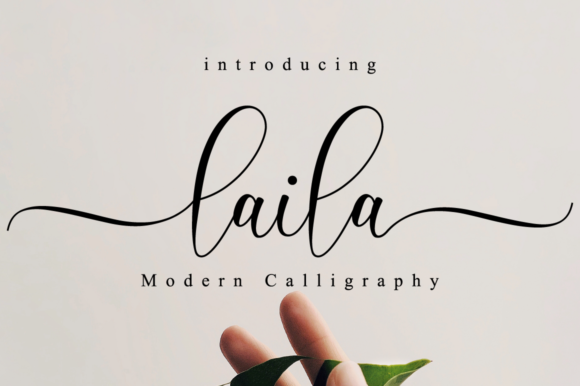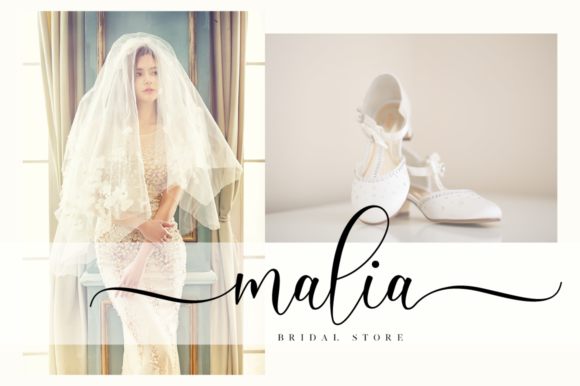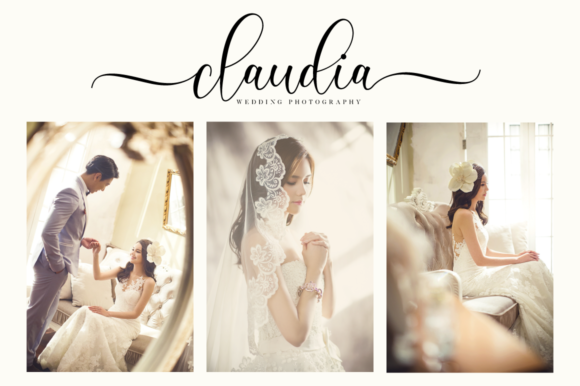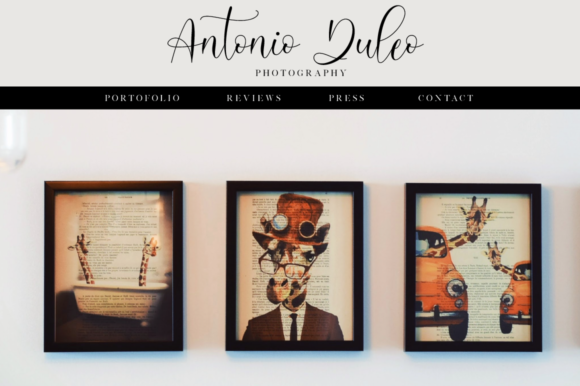
Laila Script Font
About the Laila Script Font
Welcome to the world of Laila Script Font, a typeface that will inspire your next great project. Laila is a beautiful script font. It has a classy, elegant, and modern look which can be used for logos, branding, invitations, stationary, wedding designs, social media posts, and every other design that needs a handwritten touch.
Laila Script excels in applications requiring a touch of elegance and sophistication. It’s ideal for short headlines, logos, and branding elements where its graceful curves make a strong visual statement. Consider it for invitations, wedding materials, and social media graphics that benefit from a handcrafted feel. However, avoid using Laila for body text or lengthy paragraphs; its delicate nature doesn’t lend itself well to extended readability.
Its elegant, yet modern personality pairs well with clean sans-serif fonts like Montserrat or Open Sans for a balanced contrast. For a more traditional feel, consider pairing it with a classic serif such as Garamond or Playfair Display. Avoid pairing it with other script fonts, as this can create visual clutter.
Laila’s core personality is sophisticated and modern, making it suitable for brands aiming for a refined and upscale image. Think luxury goods, high-end fashion, or boutique services.
Laila Script Font Usage Examples
Laila Script Font Example